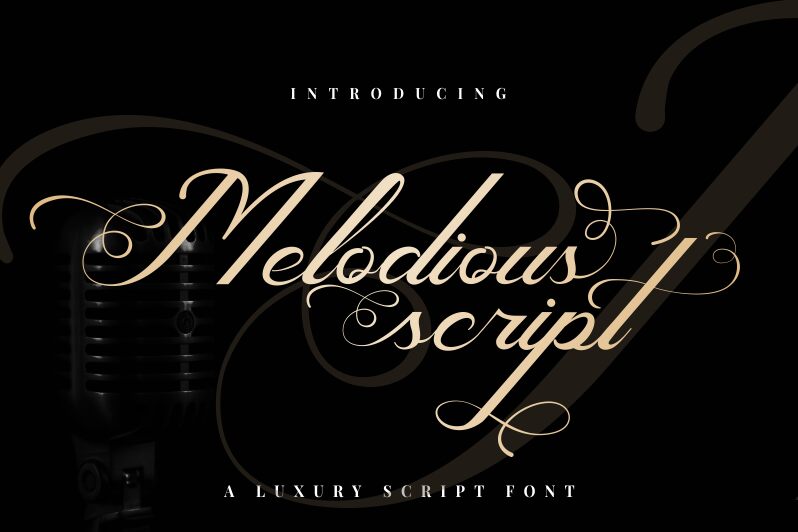
Melodious Script Free
Melodious Script is a captivating calligraphic font that exudes elegance and artistry. Crafted by designer Putra Novembria Candra Kusuma, this script-style typeface seamlessly blends flowing curves with precise strokes, creating a sense of graceful movement.
The unique letterforms and harmonious ligatures lend an expressive, almost musical quality to the font, making it a remarkable choice for a variety of applications, from high-end branding and editorial design to personalized stationery and wedding invitations.
Melodious Script's versatility and timeless appeal make it a truly compelling addition to any designer's toolkit.